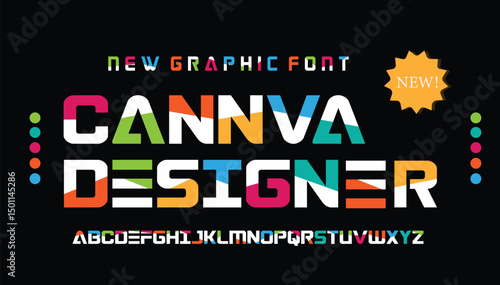
Alphabet multi-colored font, for your logo design, bright colorful letters A, B, C, D, E, F, G, H, I, J, K, L, M, N, O, P, Q, R, S, T, U, V, W, X, Y, Z, vector illustration 10EPS.